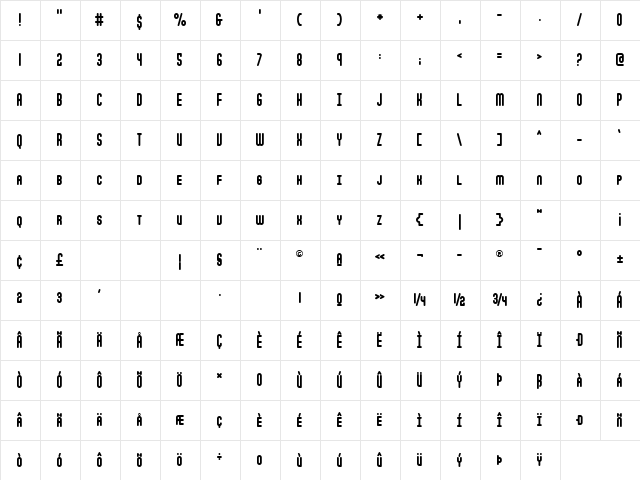
Subhuman Regular
Design Context for Subhuman Typeface
Subhuman takes a measured approach to typography — its balanced proportions and neutral character make it a reliable workhorse for both digital and print work.